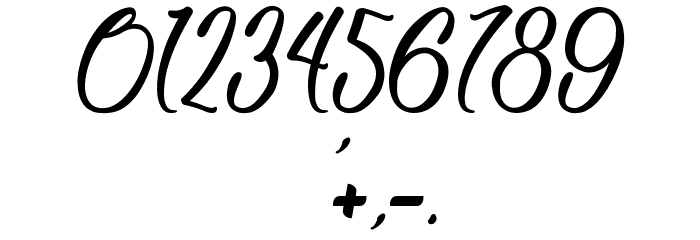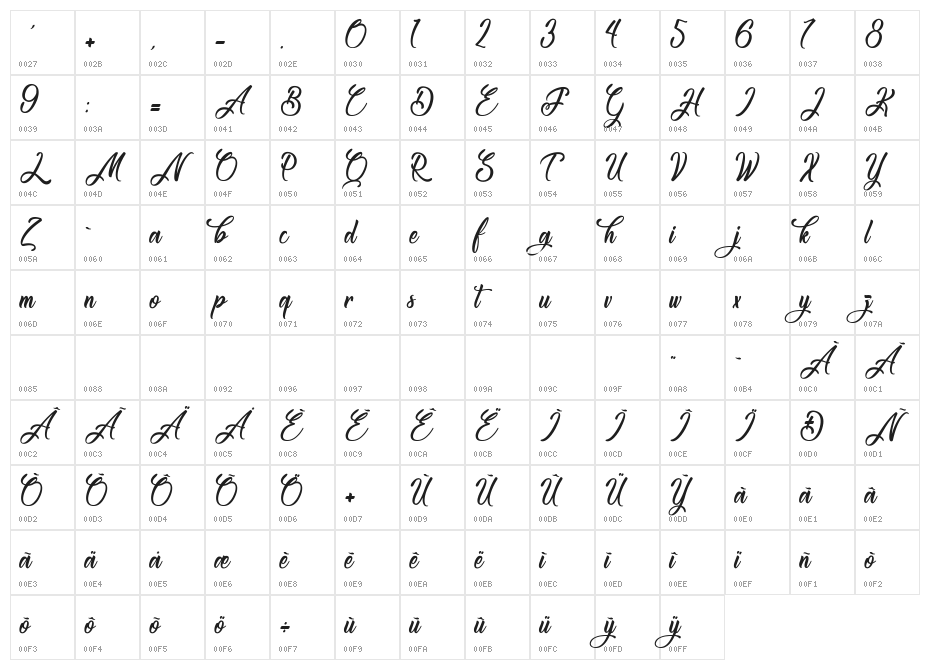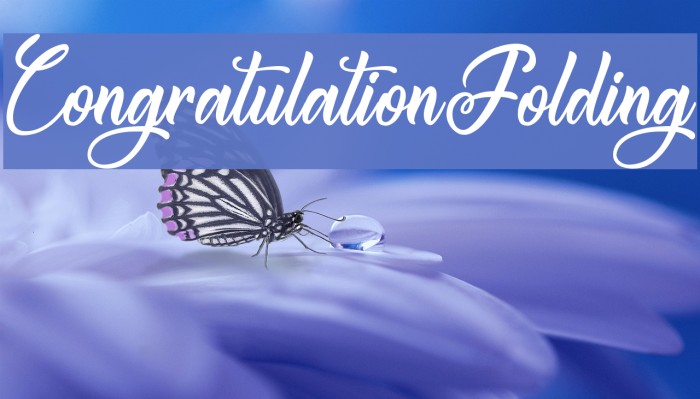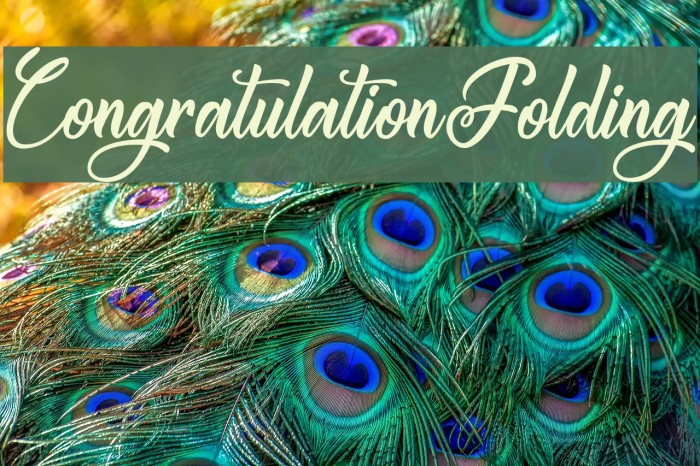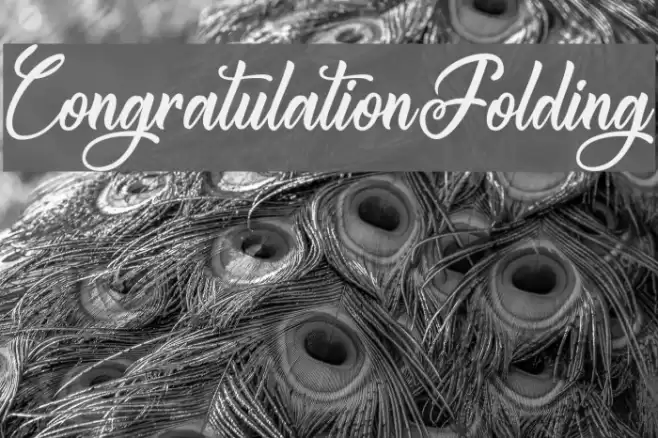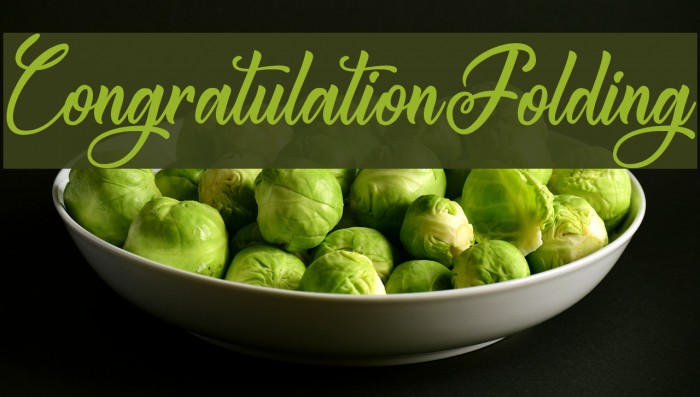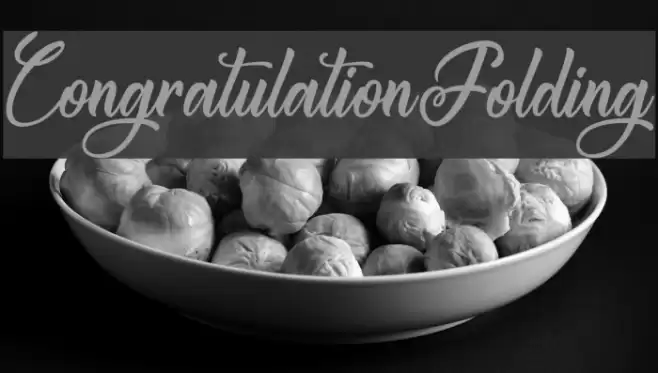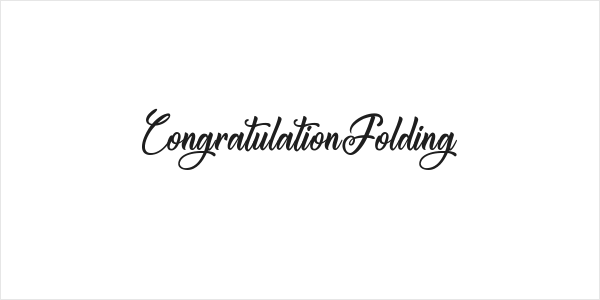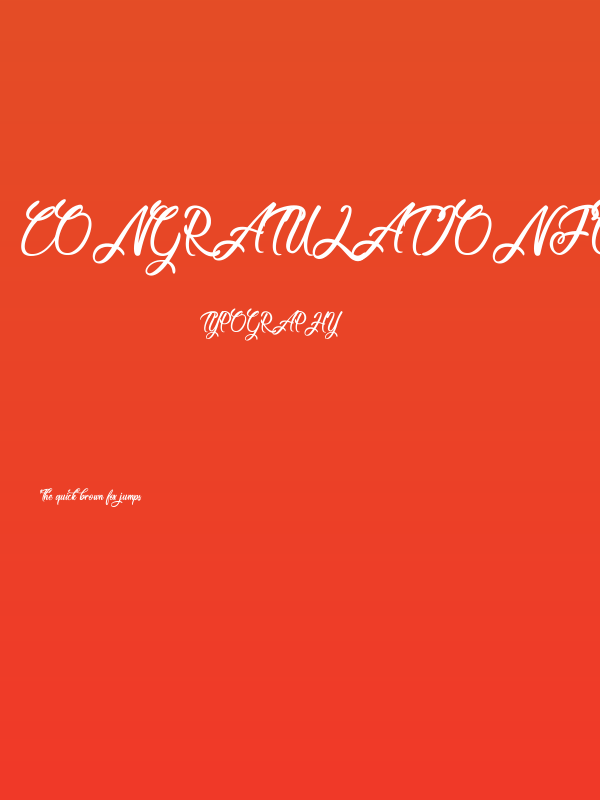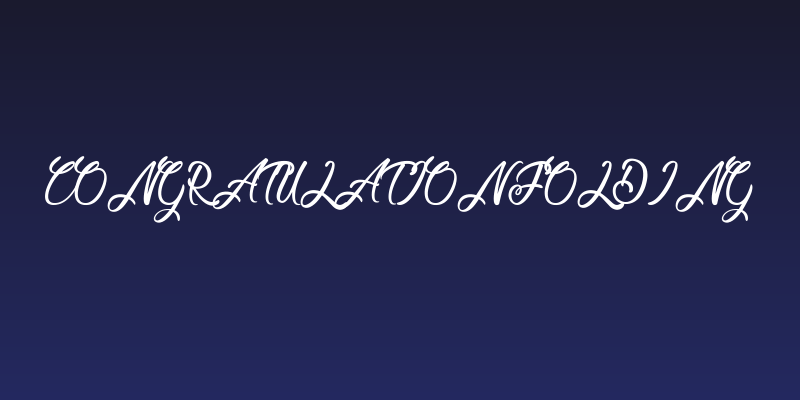
CongratulationFolding Font
CongratulationFolding Description
This elegant script font features a flowing, cursive style with intricate loops and flourishes. The uppercase letters are particularly ornate, with sweeping lines that convey a sense of sophistication and grace. The lowercase letters maintain a consistent style, offering a smooth and connected appearance that enhances readability while retaining artistic flair. The numerals are bold and slightly more straightforward, ensuring clarity. Special characters are designed to match the overall aesthetic, making this font suitable for decorative purposes. Its high contrast between thick and thin strokes adds to its dramatic and stylish look.
| Use Case | Headlines, Invitations, Logos |
| Proposed Projects | Ideal for wedding invitations, elegant branding, greeting cards, and decorative headings. |